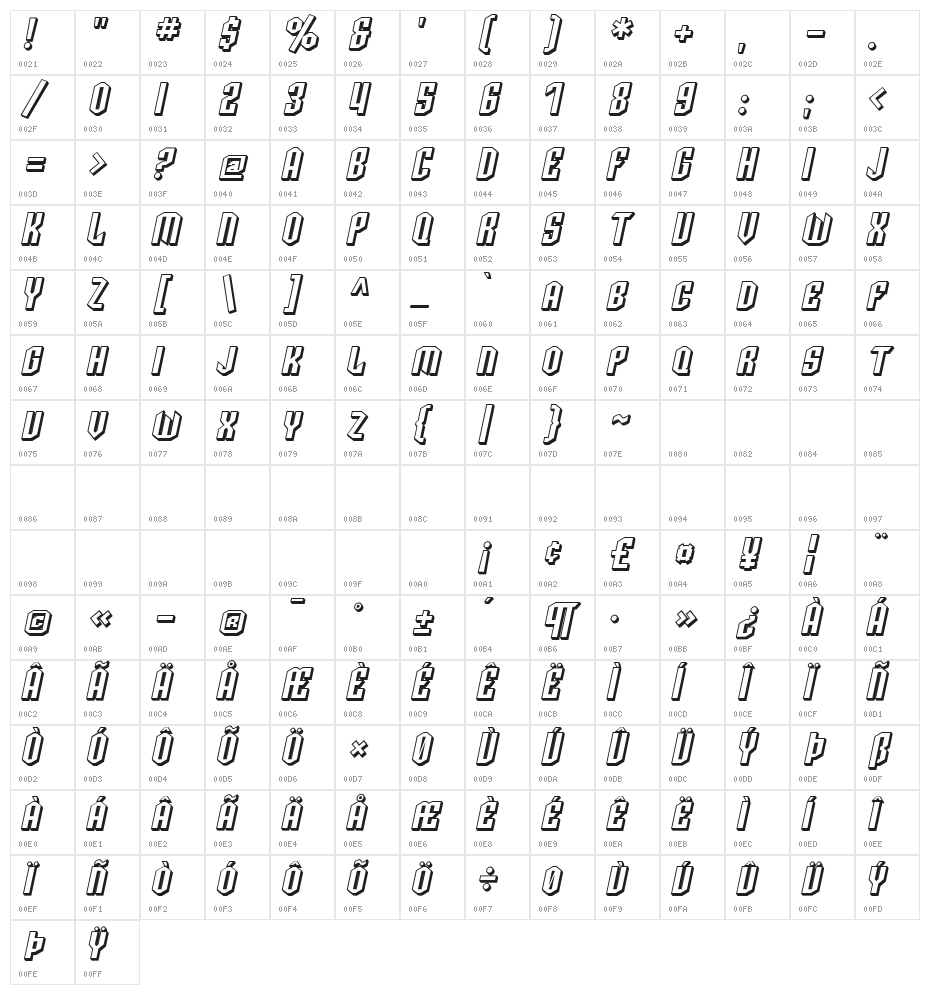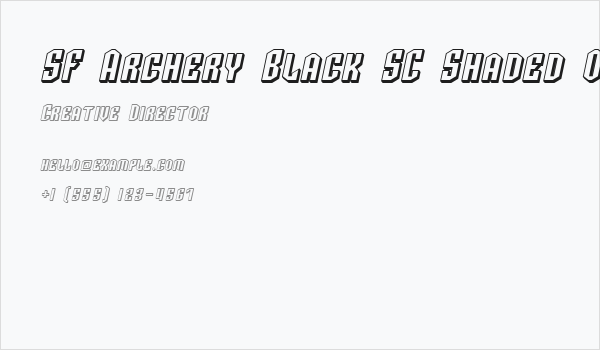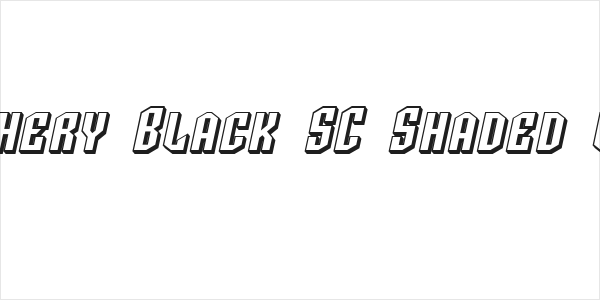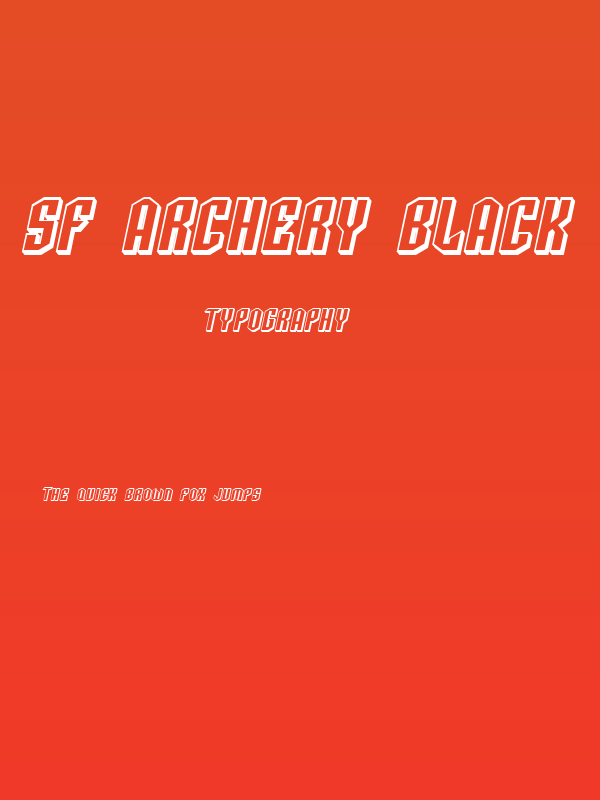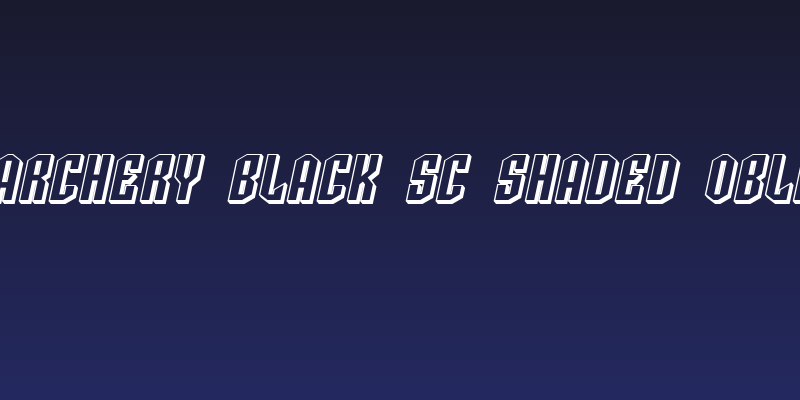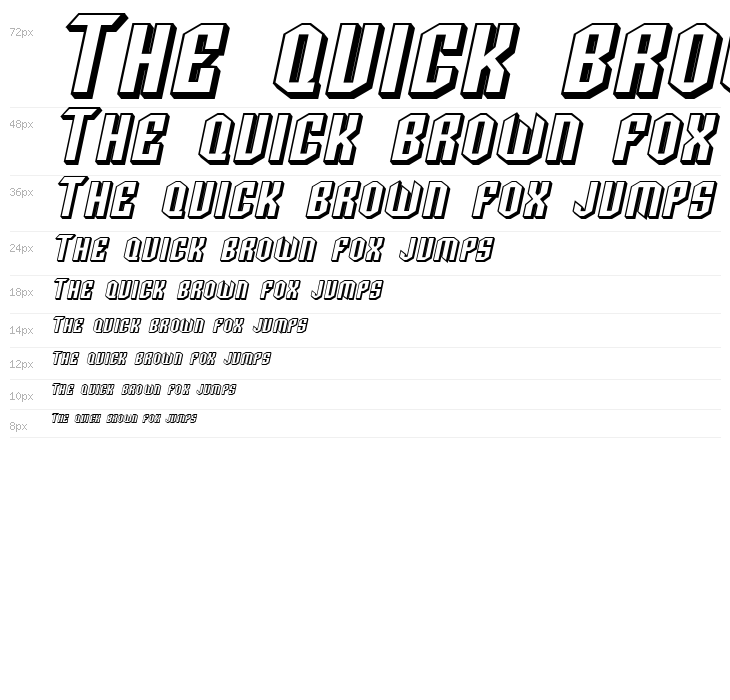
SF Archery Black SC Shaded Oblique Font
SF Archery Black SC Shaded Oblique Description
This font features a bold, three-dimensional appearance with a distinct shadow effect that gives it a dynamic and impactful look. The characters are uppercase and have a geometric, angular design that emphasizes strength and modernity. The oblique style adds a sense of motion and energy, making it suitable for attention-grabbing headlines. The font's shading creates a layered effect, enhancing its visual depth and making it stand out on any medium. The numbers and special characters maintain the same bold and shaded style, ensuring consistency across all text elements.
| Proposed Projects | Ideal for sports branding, posters, video game titles, and dynamic advertising campaigns. |